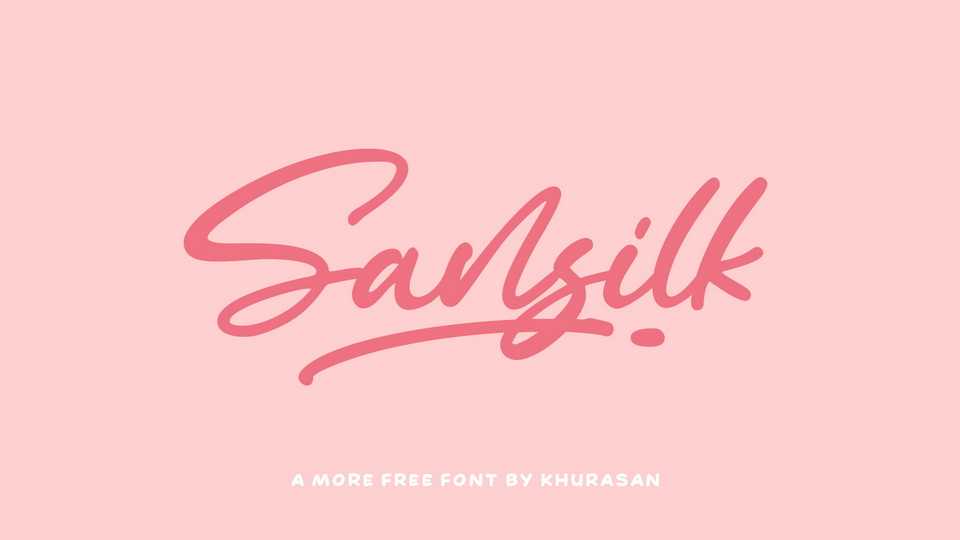
Download Sansilk font, a striking handwritten typeface, full of energy and personality. With its expressive style Sansilk font is perfect for creating impactful header text, poster designs, album covers, packaging and anywhere eye-catching lettering is needed.